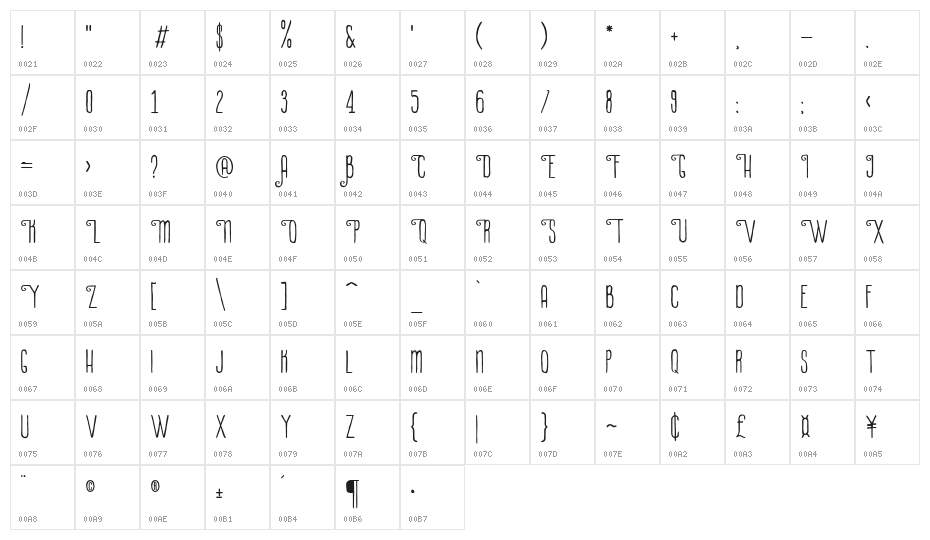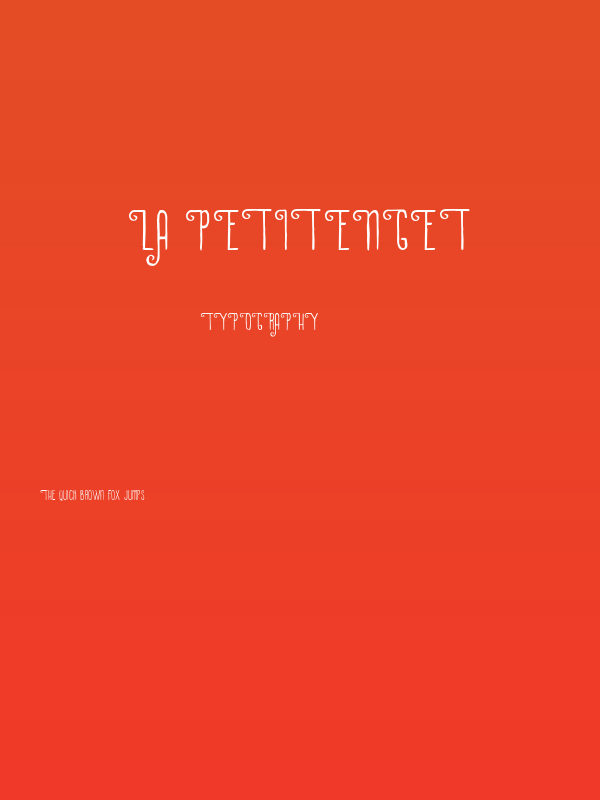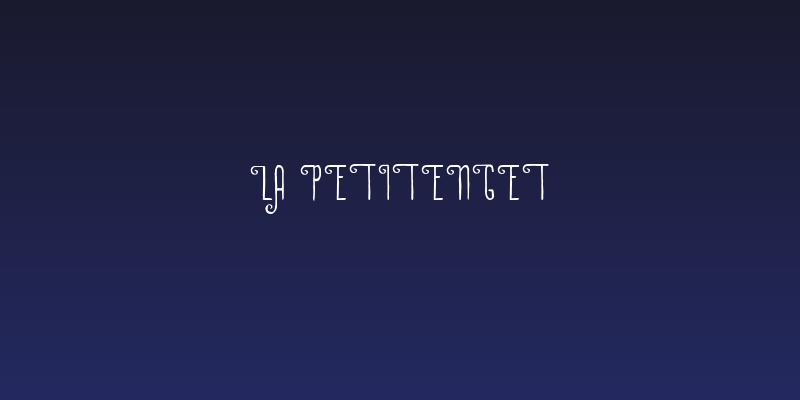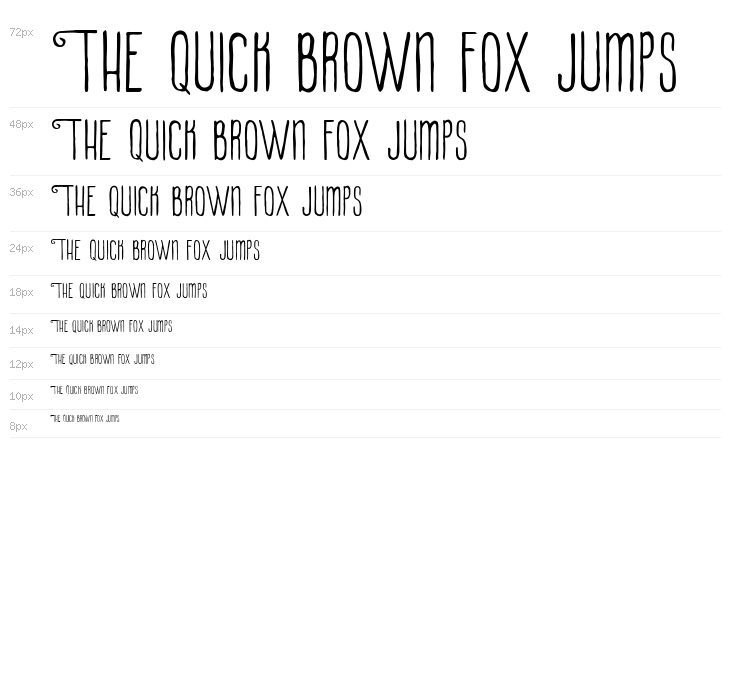
La Petitenget Font
La Petitenget Description
This font features a unique and decorative style with an elegant, elongated form. The uppercase letters are characterized by intricate swirls and loops, giving it a whimsical and artistic flair. The lowercase letters maintain a similar aesthetic, with a consistent line weight that adds to its charm. The numerals are designed to match the overall style, ensuring a cohesive look across all characters. Special characters are included, each with its own decorative twist, making this font versatile for creative projects. The overall design is both playful and sophisticated, suitable for a variety of uses.
| Use Case | Logos, Invitations, Artistic Projects |
| Proposed Projects | Ideal for wedding invitations, greeting cards, branding projects, and artistic posters. |